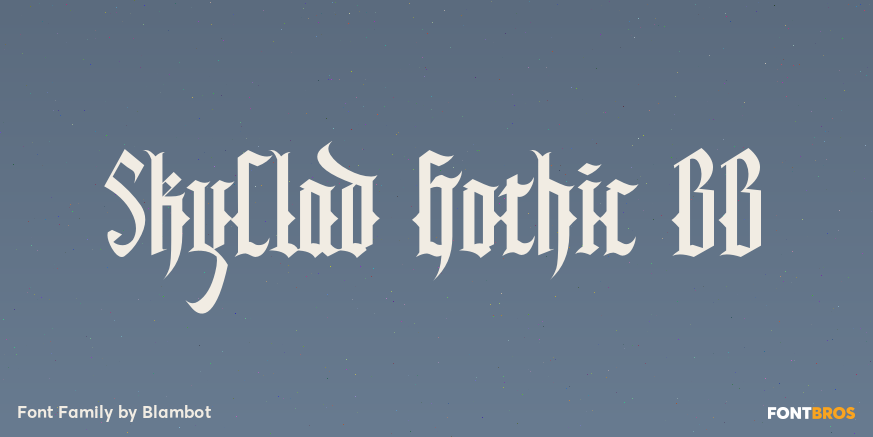
SkyClad Gothic BB
About SkyClad Gothic BB
A traditional calligraphy-style gothic font with a twist. The uppercase letters were designed for easier readability than typical gothic text. This gothic font can be used in all caps and still be extremely legible.